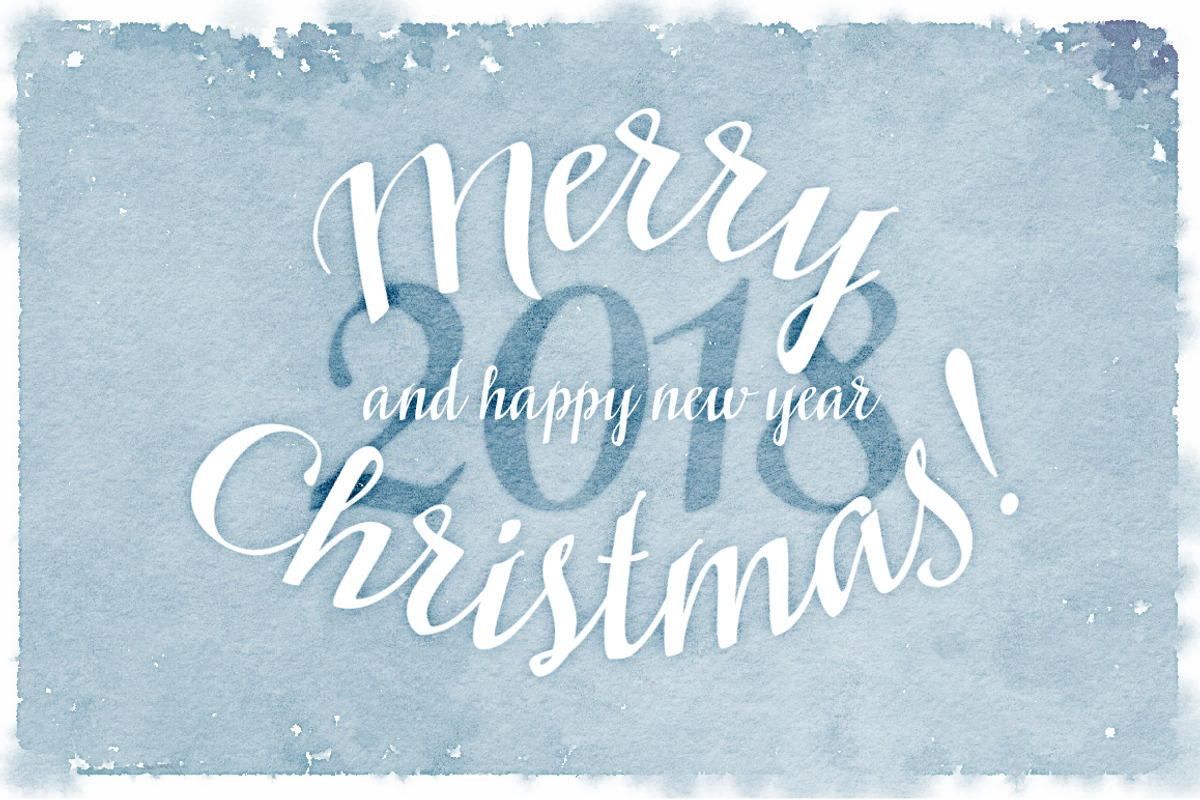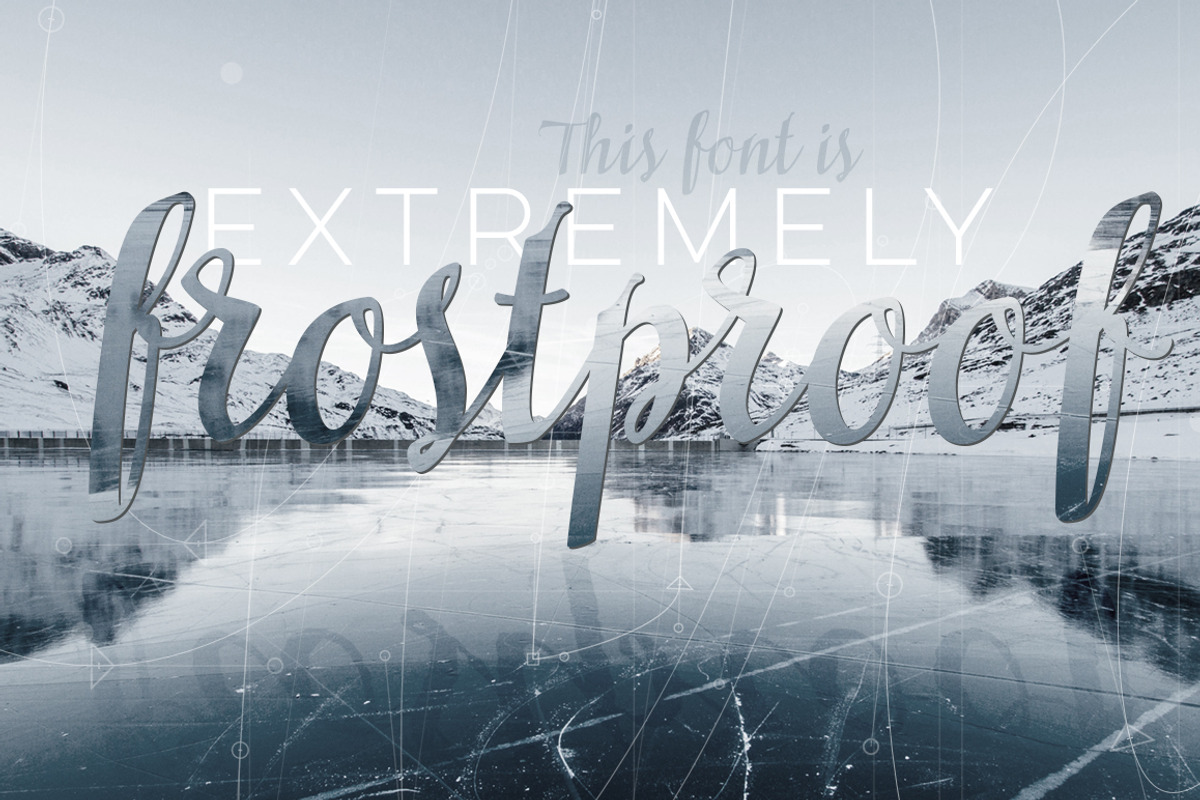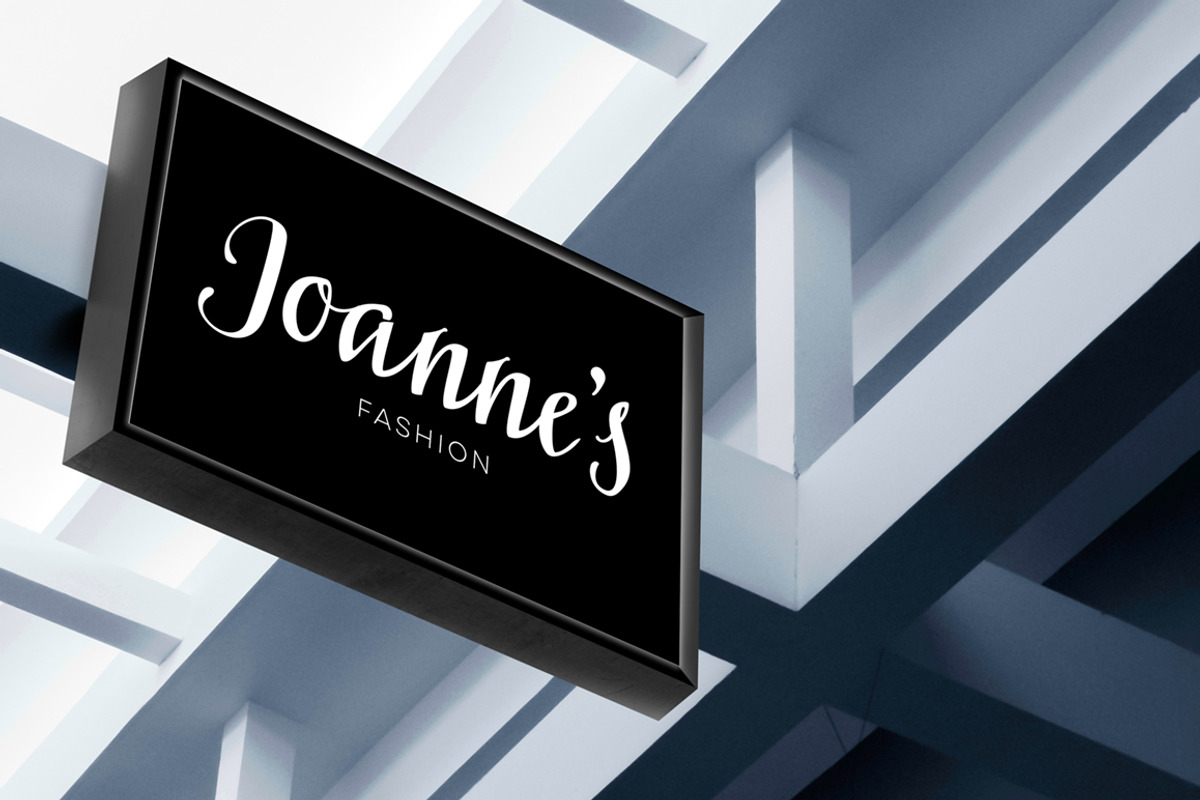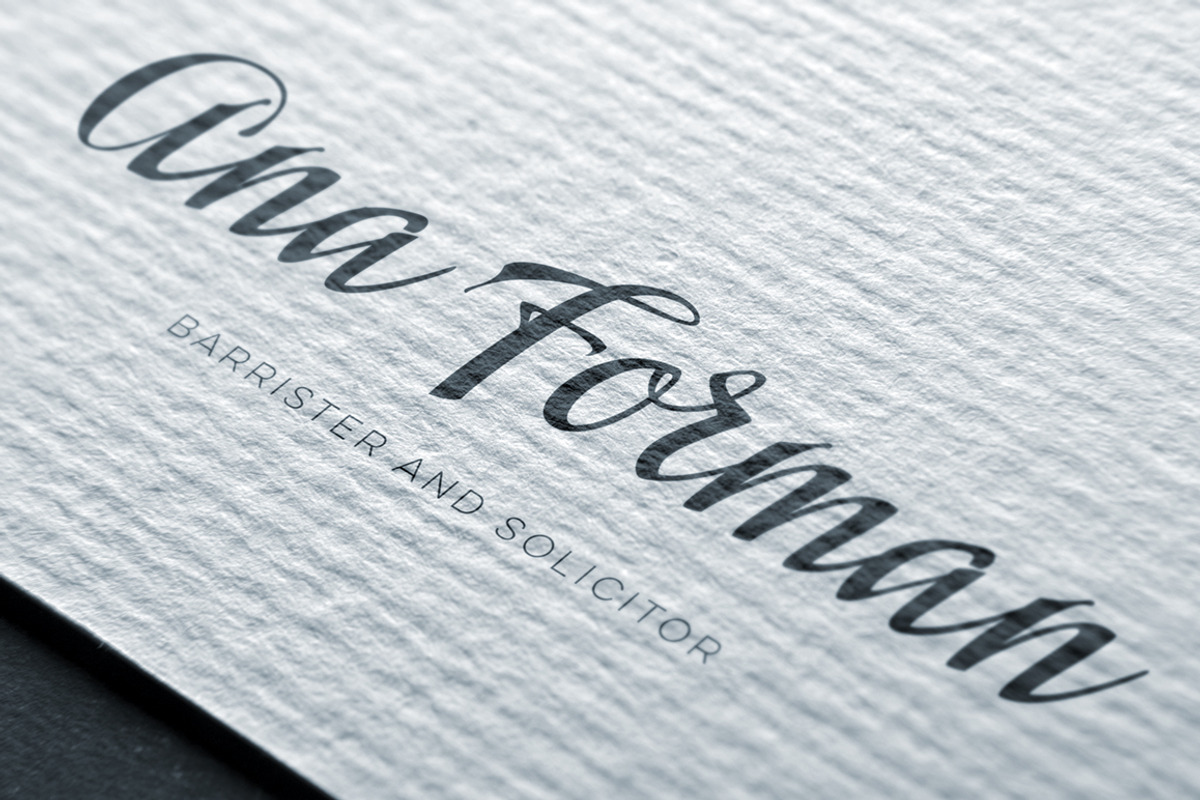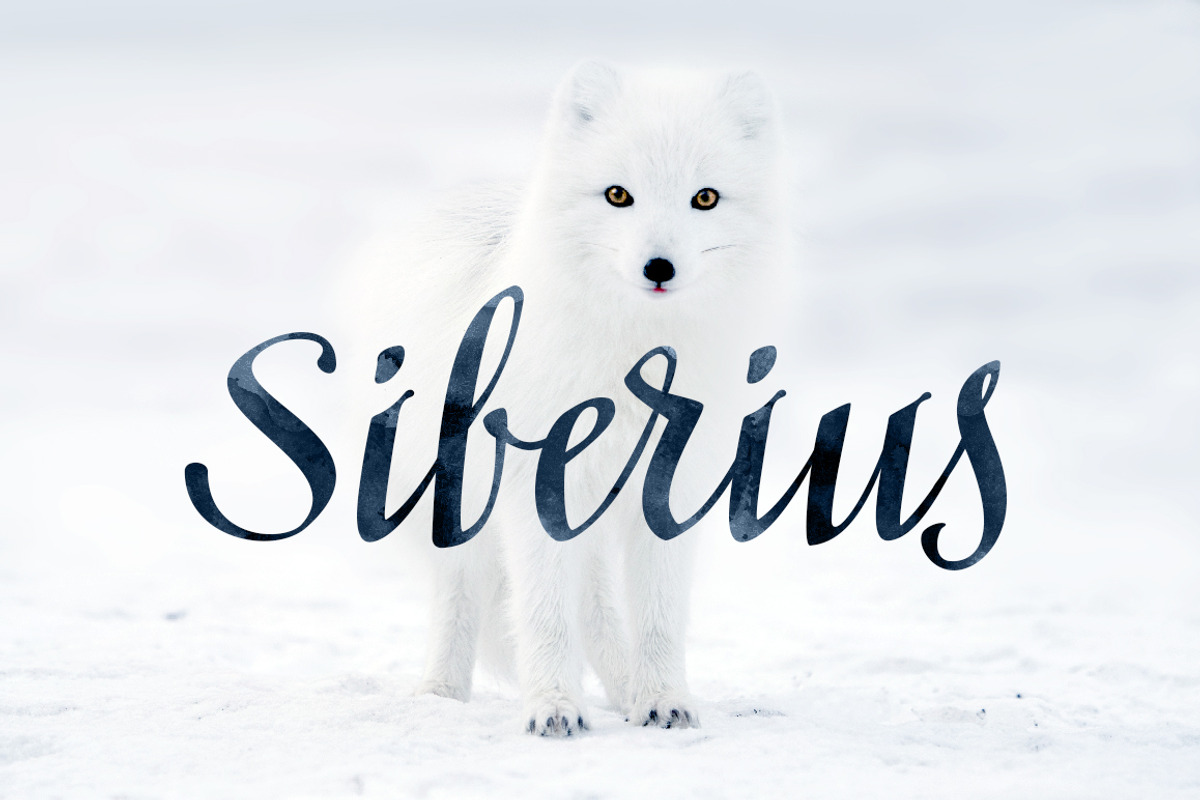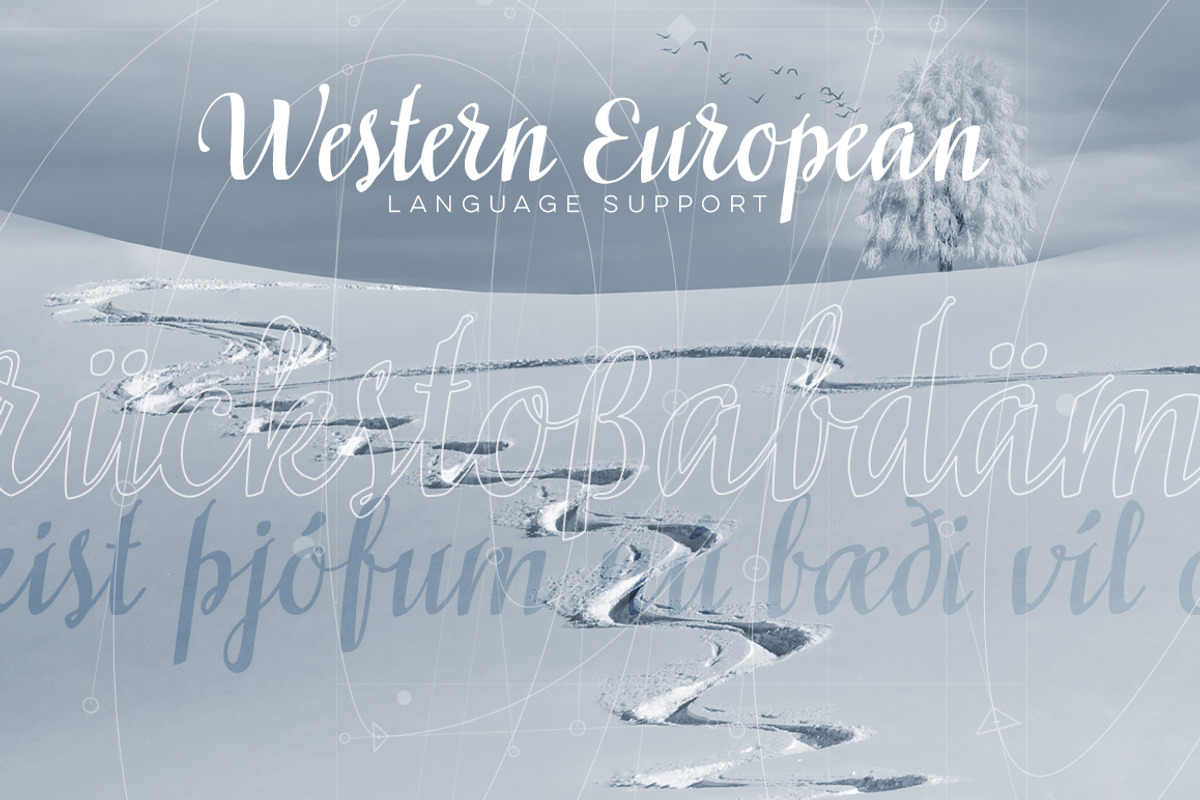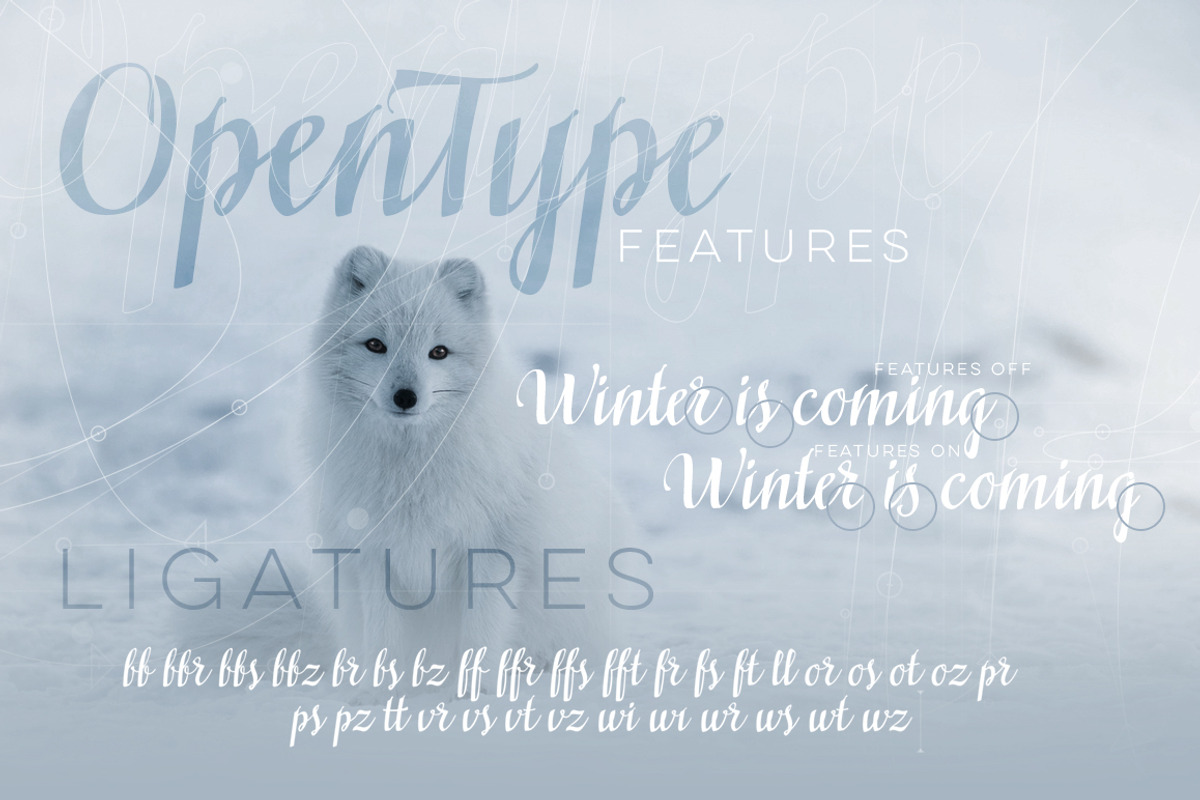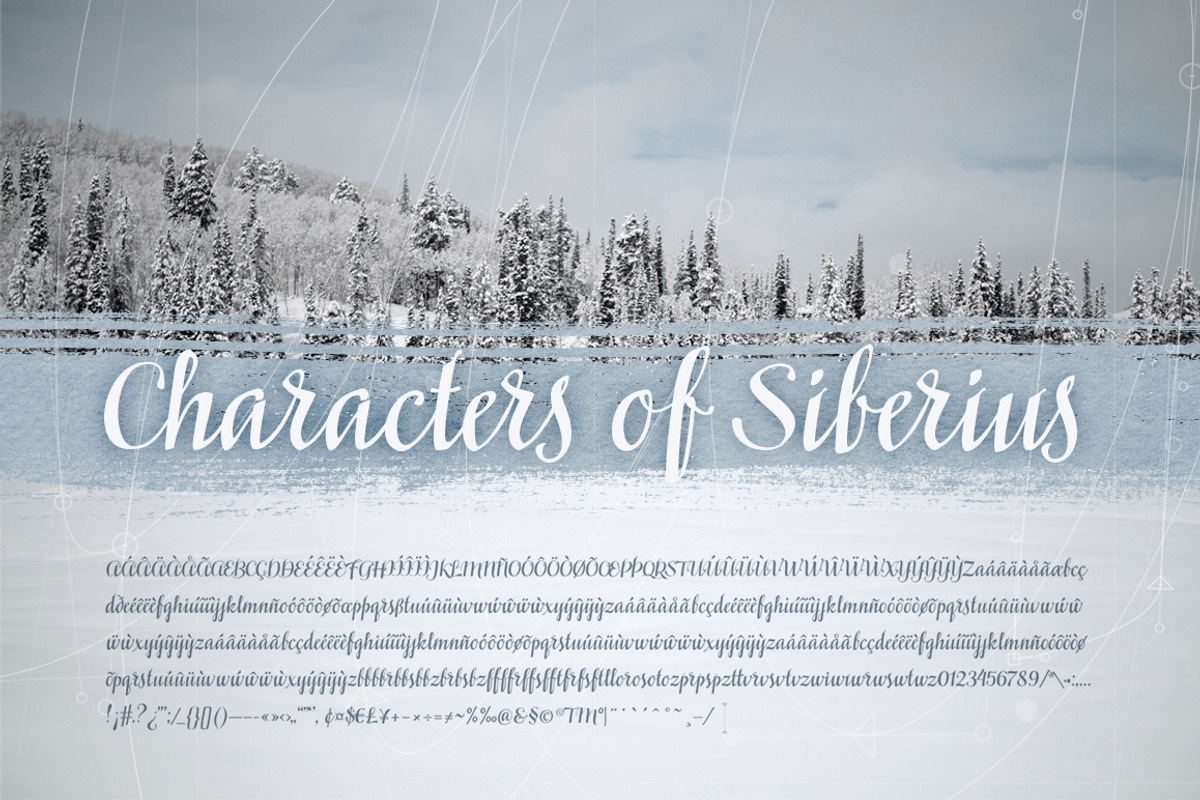
Siberius Clean Script Typeface
Meet Siberius - a fine clean connected script from Siberia. I left Siberia a loooong time ago and now live in warm and sunny Guatemala, maybe this is why I wanted to make something refreshing. The characters were first written on paper with a flat nib pen and carefully traced with Bezier curves.
Western European language support
Ligatures and alternates